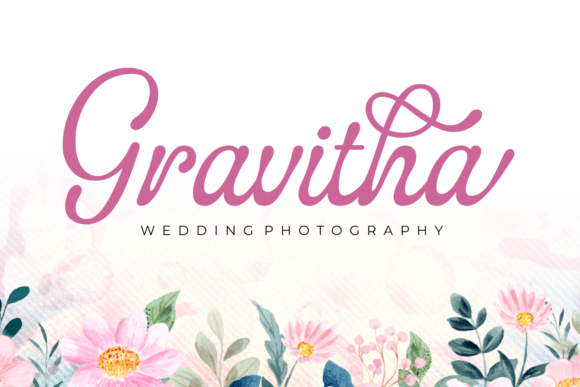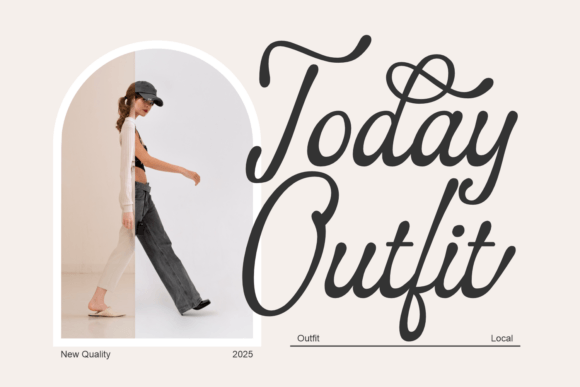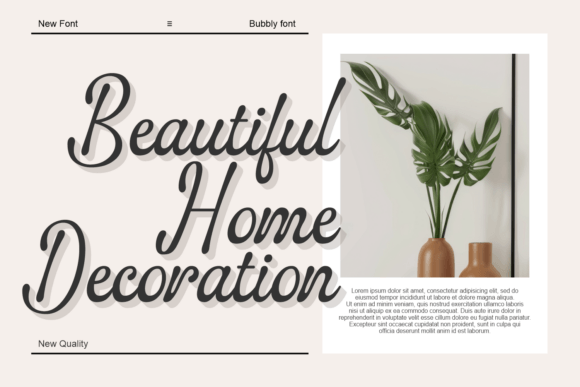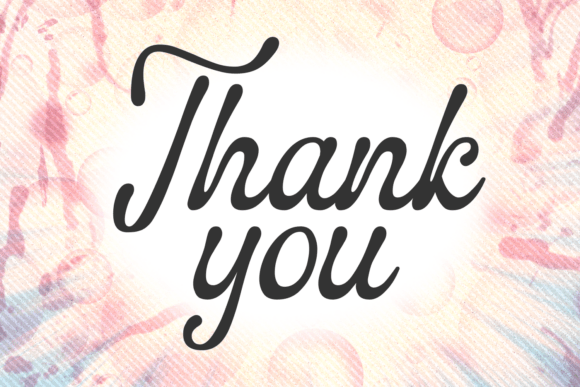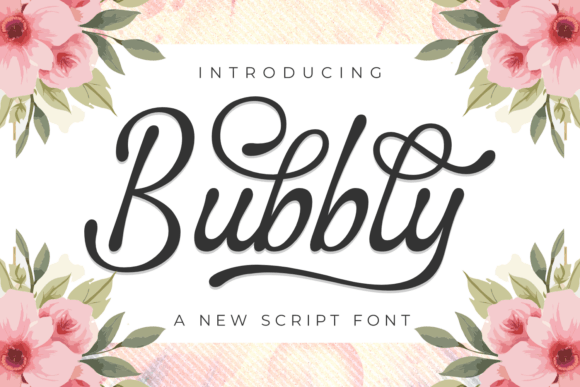
Bubbly Font: Adding a Playful Touch to Your Designs
Are you looking for a font that can add a playful and cheerful touch to your designs? Look no further than the Bubbly font. This delightful script font features round, soft letters that are sure to bring a smile to anyone’s face. In this article, we’ll take a closer look at the Bubbly font, its characteristics, and how you can use it to elevate your designs.
What is Bubbly Font?
Bubbly is a playful script font that is characterized by its round, soft letters. The font has a fun and cheerful style, making it perfect for designs that need a friendly touch. The letters flow smoothly, giving it a casual and inviting look that’s perfect for a variety of design projects.
Key Features of Bubbly Font
- Playful and Cheerful: Bubbly font has a playful and cheerful style that’s sure to grab attention.
- Round and Soft Letters: The font features round, soft letters that give it a friendly and approachable look.
- Smooth Flow: The letters flow smoothly, creating a casual and inviting look.
- Perfect for Invitations and Greeting Cards: Bubbly font is ideal for invitations, greeting cards, and any design that needs a friendly touch.
Uses of Bubbly Font
Bubbly font is a versatile font that can be used in a variety of design projects. Here are some of the most popular uses of Bubbly font:
- Invitations: Bubbly font is perfect for creating invitations for parties, weddings, and other special events.
- Greeting Cards: The font is ideal for creating greeting cards for birthdays, holidays, and other special occasions.
- Social Media Graphics: Bubbly font can be used to create social media graphics that need a playful and cheerful touch.
- Branding: The font can be used in branding projects that require a friendly and approachable look.
Tips for Using Bubbly Font
Here are some tips for using Bubbly font in your designs:
- Use it for Headlines: Bubbly font is perfect for headlines and titles, where you want to grab attention.
- Pair it with Other Fonts: You can pair Bubbly font with other fonts to create a unique and interesting look.
- Experiment with Colors: Bubbly font looks great in bright and pastel colors, so don’t be afraid to experiment.
- Keep it Simple: Don’t overcomplicate your design. Keep it simple and let the Bubbly font do the talking.
In conclusion, Bubbly font is a playful script font that can add a friendly and cheerful touch to your designs. Its round, soft letters and smooth flow make it perfect for invitations, greeting cards, and any design that needs a playful touch. With its versatility and ease of use, Bubbly font is a great addition to any designer’s toolkit.
Bubbly Font Inspiration
Here are some design ideas that you can use as inspiration for your Bubbly font projects:
- Create a Party Invitation: Use Bubbly font to create a party invitation that’s fun and playful.
- Design a Greeting Card: Use the font to create a greeting card for a special occasion.
- Make a Social Media Graphic: Use Bubbly font to create a social media graphic that’s playful and engaging.